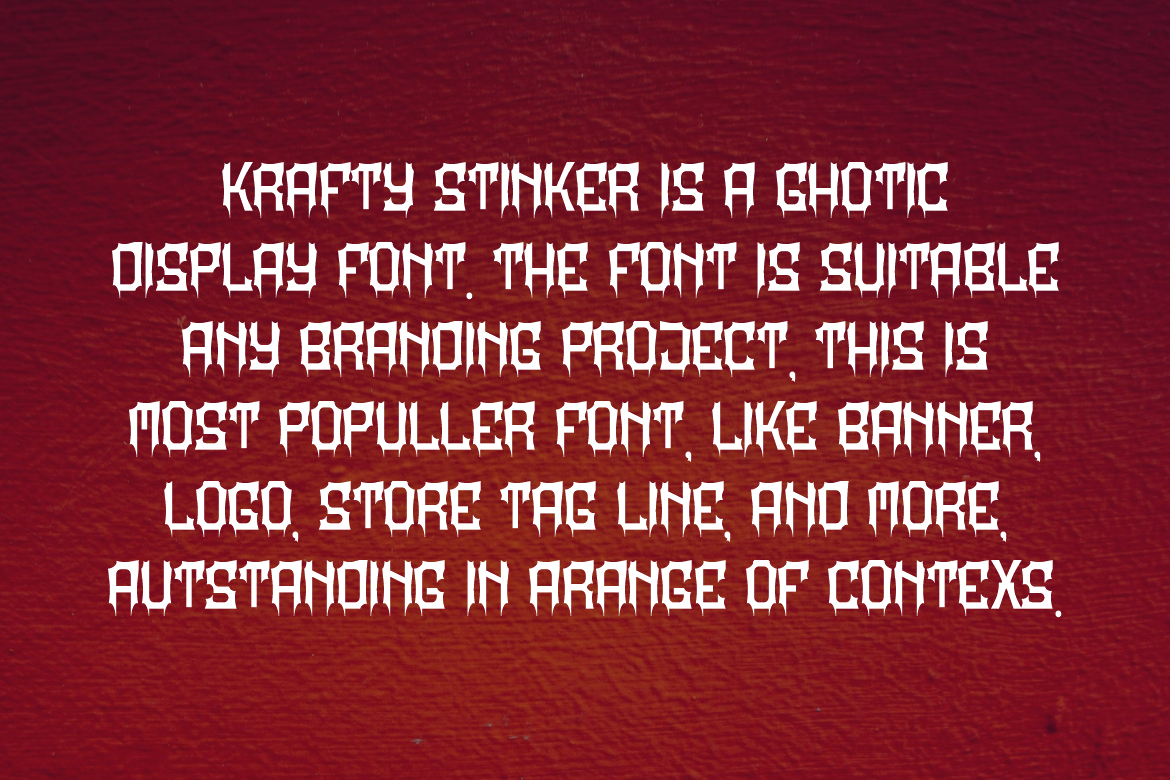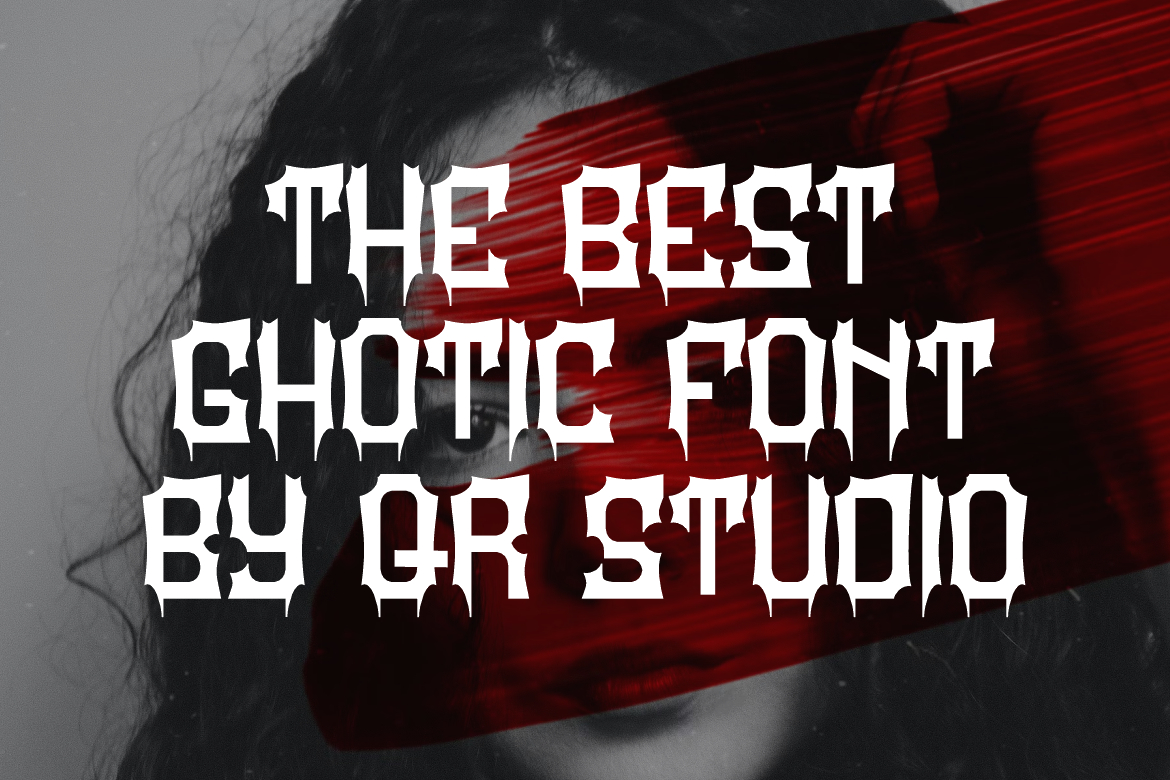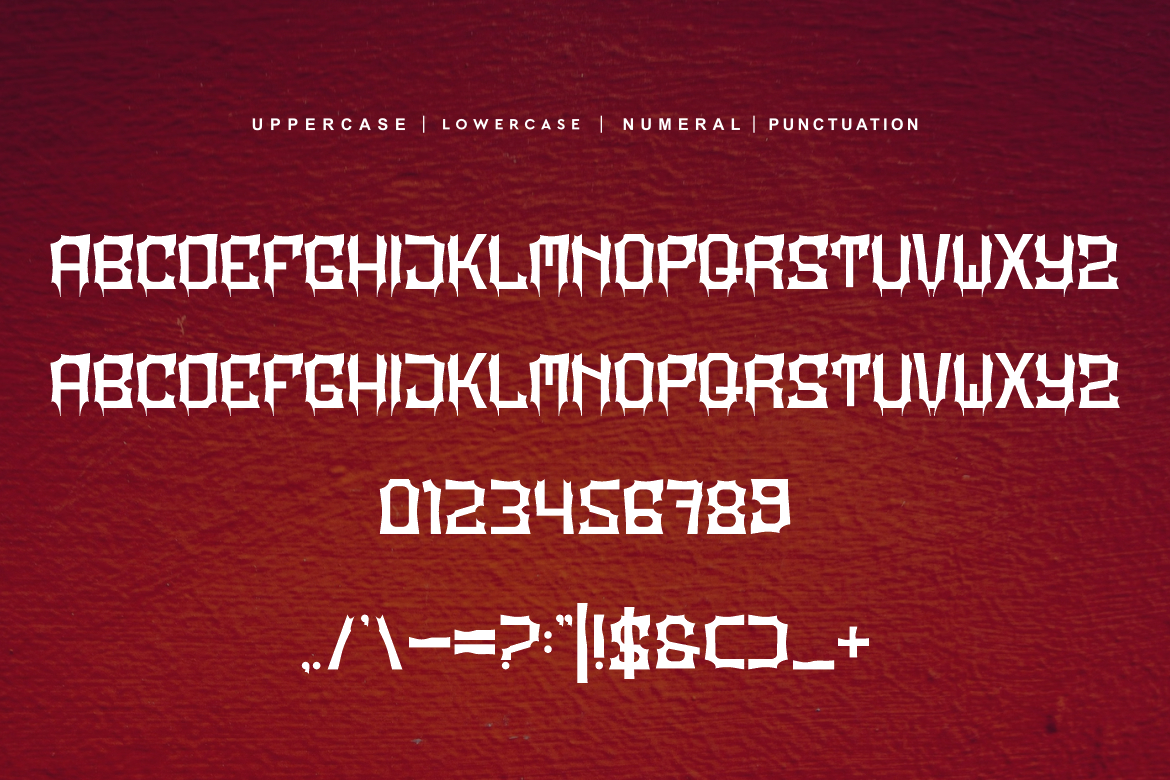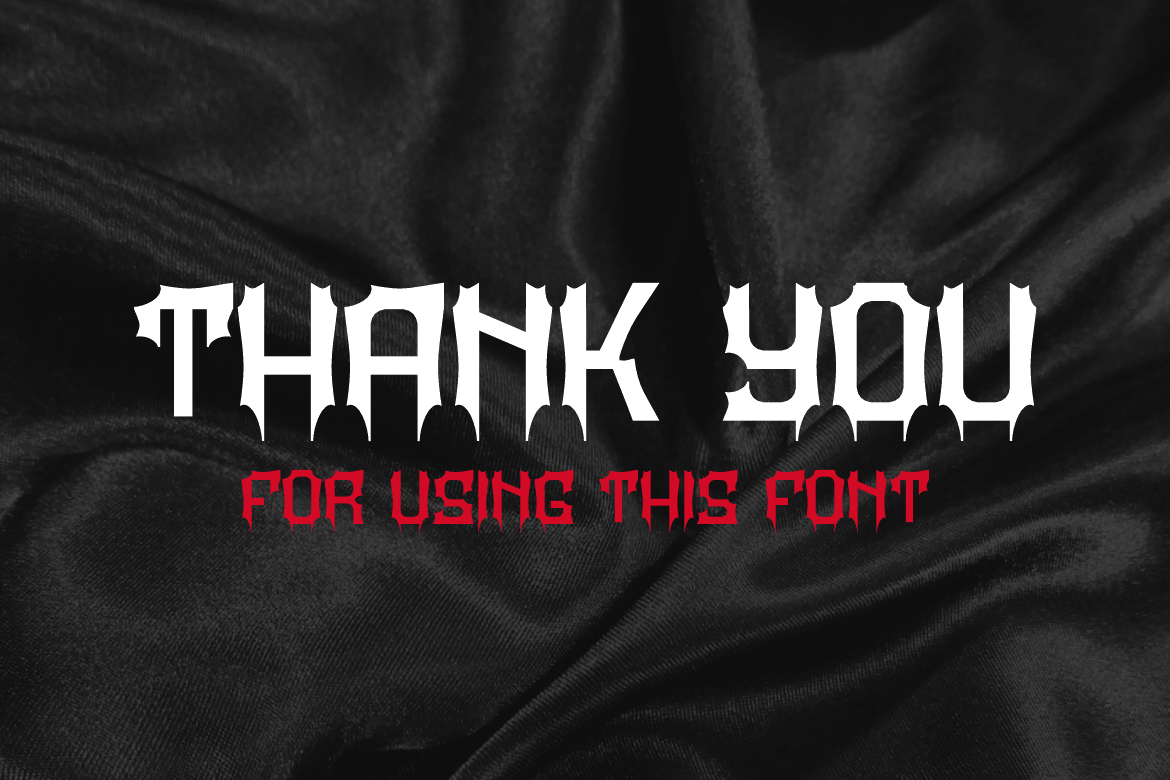
Krafty Stinker Font
About Krafty Stinker Font
Krafty Stinker Font is a bold and authentic display font.
The font is suitable for any branding project like logo, sport, and many more.